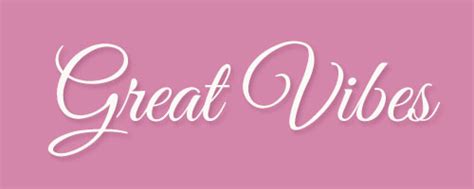
Free fonts created for specific purposes are generally thin on the ground, but here's a great exception. Script fonts are flowing stroke letters based upon handwriting or calligraphy. Всеaccident allcaps antique brush calligraphic comic condensed cursive dashed display dotted geometric gothic grotesque handwritten headings heavy outline pixel retro rounded script slab slanted small caps stencil text thin typewriter vintage. Script font is a broad style that refers to any typeface that looks like it was drawn by hand. Another great font duo pack is this trendy script set.
Script fonts are flowing stroke letters based upon handwriting or calligraphy. They are organized into highly regular formal types similar to cursive writing and looser, more casual scripts. Download free cyrillic fonts for commercial and personal use. Script typefaces are based upon the varied and often fluid stroke created by handwriting, pretty much like the cursive fonts just typically more elegant. Fontsc.com is formed in the spirit of for fonts, where creative ideas meet beautiful designs as we all know great designs last forever! This pack includes one elegant script alongside a bold display font. Roboto and open sans come in check out unifrakturmaguntia, unifrakturcook, pirata one, new rocker, germania one and fruktur for some. Download thousands of completely legal, high quality, free fonts.
In this collection featured modern calligraphic fonts, signature style fonts… rachela lovely calligraphy a new and beautiful font, created to meet your needs in creating a beautiful and elegant design, this font is special for you. Google fonts now supports variable fonts. Try the new selection of free script fonts over on envato elements. This pack includes one elegant script alongside a bold display font. Introducing fresh update of free script fonts for personal use.
Шрифт mistletoe font duo cyrillic. Всеaccident allcaps antique brush calligraphic comic condensed cursive dashed display dotted geometric gothic grotesque handwritten headings heavy outline pixel retro rounded script slab slanted small caps stencil text thin typewriter vintage. Script typefaces are based upon the varied and often fluid stroke created by handwriting, pretty much like the cursive fonts just typically more elegant. Typography is currently playing a central role in web design, with progressive improvements like variable fonts, css shapes, flexbox, css grids and subgrid definitively changing the way we work with typography in web design. Download all 11,040 script font fonts unlimited times with a single envato elements subscription. Archivo narrow (included in the list above) is really great. Our site is great except that we don't support your browser. Roboto and open sans come in check out unifrakturmaguntia, unifrakturcook, pirata one, new rocker, germania one and fruktur for some.
Всеaccident allcaps antique brush calligraphic comic condensed cursive dashed display dotted geometric gothic grotesque handwritten headings heavy outline pixel retro rounded script slab slanted small caps stencil text thin typewriter vintage. Try the new selection of free script fonts over on envato elements. All of these fonts are 100% free, both for personal and commercial uses. Script fonts for invitations, cards, posters, and albums.these script font sets are inspired by vintage, classic, and modern letterforms. Available for both personal and. So you can use these fonts for your logos, clothing, banners, posters, or even youtube thumbnails! Want more amazing script fonts? Шрифт mistletoe font duo cyrillic. Created by rajesh rajput, it's also. Browse a unique collection of the best cyrillic fonts and thousands of free typefaces to download. Download and install free script fonts of the best quality from free fonts and use on your own personal and business related design purposes. Free fonts created for specific purposes are generally thin on the ground, but here's a great exception. In this collection featured modern calligraphic fonts, signature style fonts… rachela lovely calligraphy a new and beautiful font, created to meet your needs in creating a beautiful and elegant design, this font is special for you.